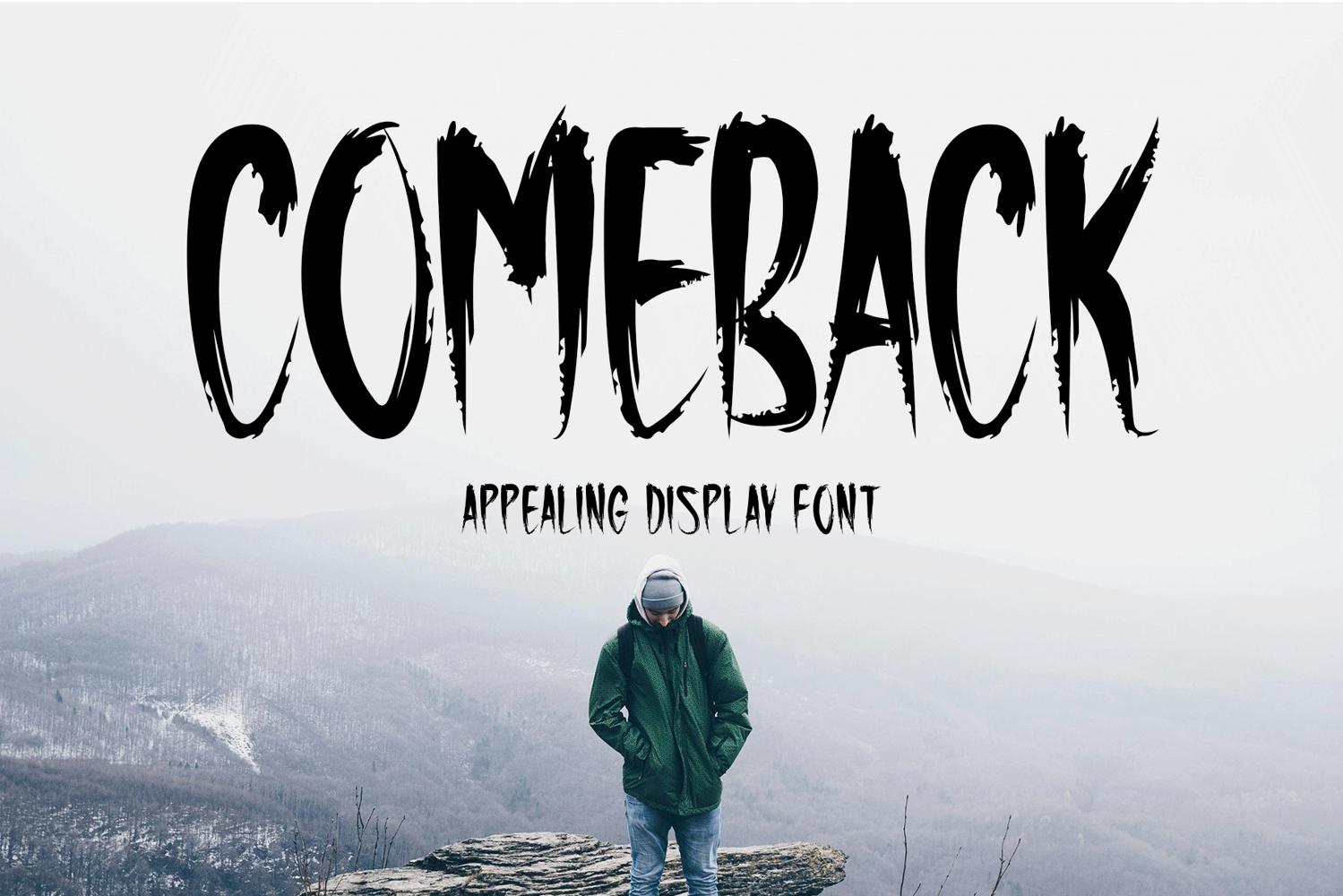
Introducing Comeback!
Comeback is a dynamic brush-style font that features smooth, expressive strokes and a natural, handcrafted look. Its artistic texture makes it suitable for many types of creative work, including stationery, branding, t-shirts, posters, music covers, flyers, website headers, and various print designs. With its energetic flow and unique character, Comeback adds a strong visual presence to any project.
Includes a range of multilingual support